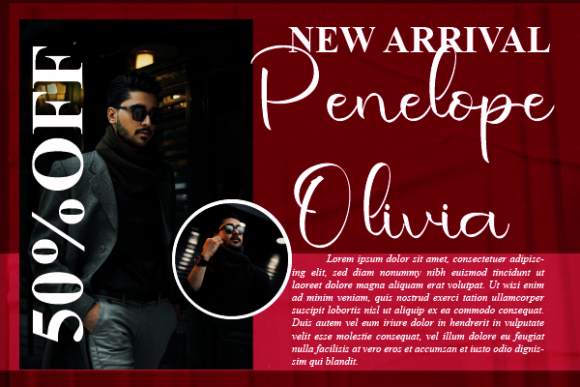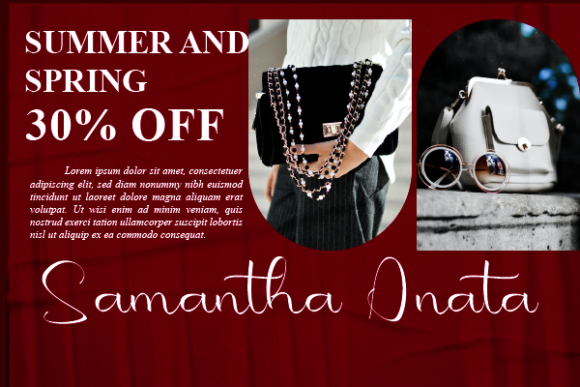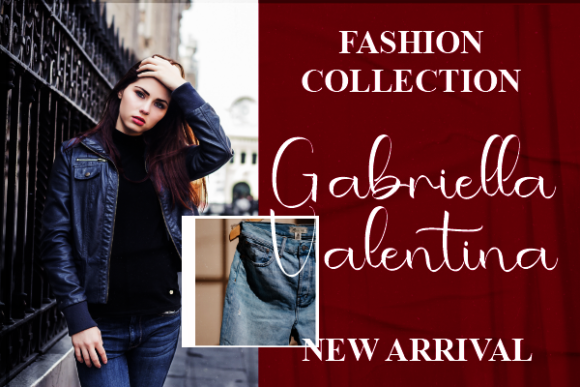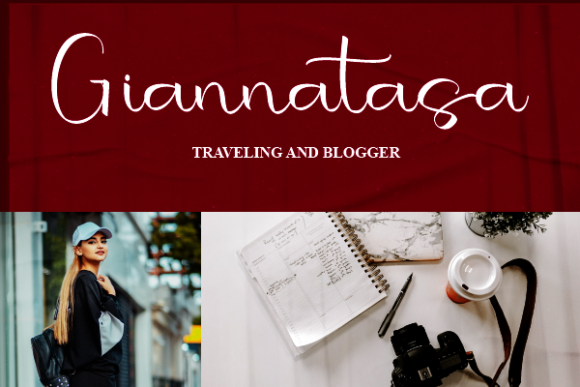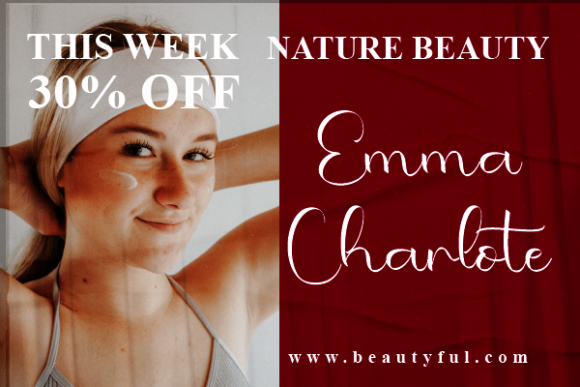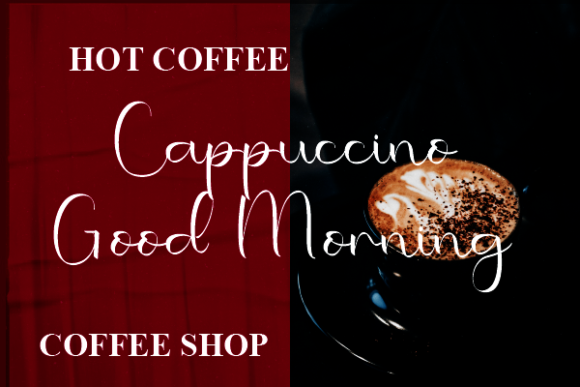
The Magical World of Annalise Regina Font
I’ll never forget the time I was working on a branding project for a children’s party planning service. I had the logo concept, the color palette, and the overall aesthetic nailed down, but something was missing. The font I had chosen just wasn’t doing justice to the playful, whimsical vibe I was going for. That’s when I stumbled upon Annalise Regina Font, and it was love at first sight! 💫
Annalise Regina is a round lettered script font that features charming, playful characters that seem to dance along the baseline. It’s perfect for adding a touch of magic to your creative projects. In this article, I’ll share my honest review of Annalise Regina Font, provide a practical guide on how to use it, and explore similar fonts that might tickle your fancy.
An Honest Review of Annalise Regina Font
• Playful and charming characters that add a touch of whimsy to any project 🎉
• Round lettered design that creates a sense of movement and energy 🌈
• Perfect for creative projects that require a personal touch, such as branding, invitations, and social media graphics 📚
• Easy to read and understand, even in smaller sizes 🔍
While Annalise Regina Font is an amazing addition to any project, there are a few things to keep in mind:
• Some characters may not work well in very small sizes, so it’s best to use it at larger sizes (14pt or higher) 📊
• Limited use of uppercase letters, which might be a limitation for certain projects 📝
• Not suitable for very formal or professional projects, as it has a distinctly playful tone 😊
The Designer Inspiration Behind Annalise Regina Font
Annalise Regina Font was designed with the intention of creating a playful, whimsical font that would bring joy to creative projects. The designer, who wishes to remain anonymous, drew inspiration from classic script fonts and infused them with a modern, energetic twist. 💫
Q: What is Annalise Regina Font?
Annalise Regina Font is a round lettered script font featuring charming, playful characters that seem to dance along the baseline. 💃
Absolutely! Annalise Regina Font is perfect for personal projects, such as crafting, scrapbooking, and DIY projects. 🎨